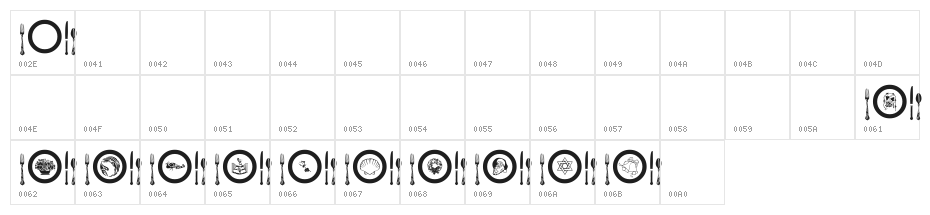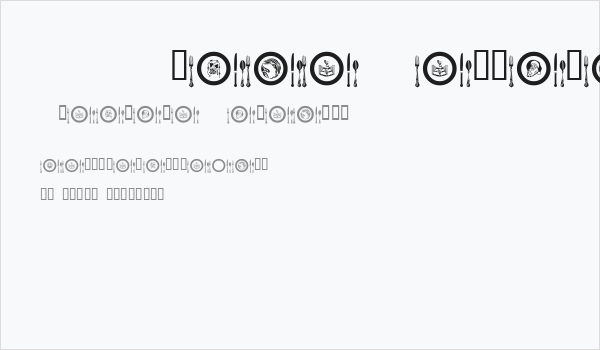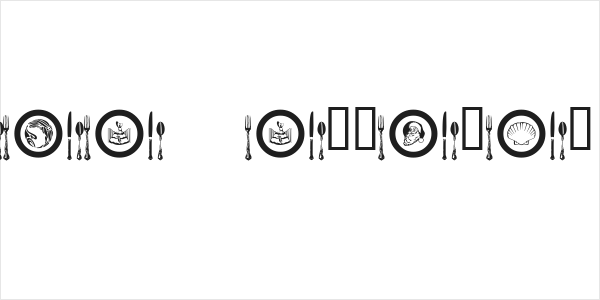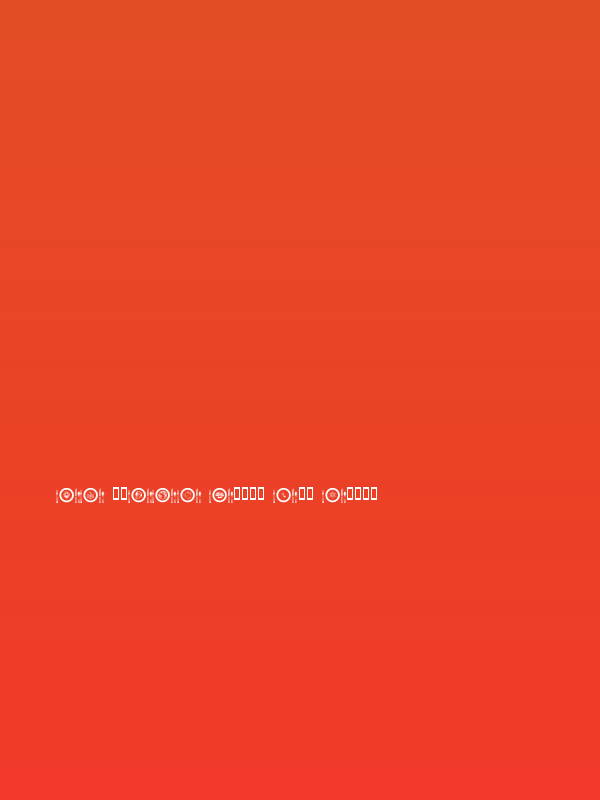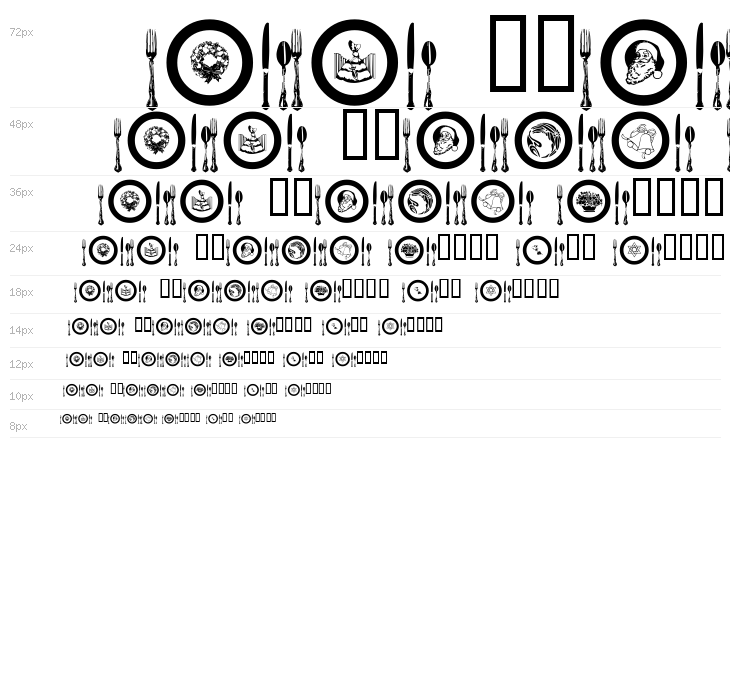
AL Place Settings Dings Font
AL Place Settings Dings Description
This font is a decorative dingbat style featuring a variety of dining-related icons. Each character is represented by a unique symbol depicting different place settings, including plates with various food items and cutlery arrangements. The design is intricate and detailed, making it ideal for projects that require a culinary or hospitality theme. The icons are consistent in style, offering a cohesive look across the set. The font is not suitable for text but serves as a creative tool for adding visual interest to designs.
| Use Case | Logos, Decorative elements |
| Proposed Projects | Ideal for restaurant menus, culinary event invitations, food blogs, and kitchen decor designs. |